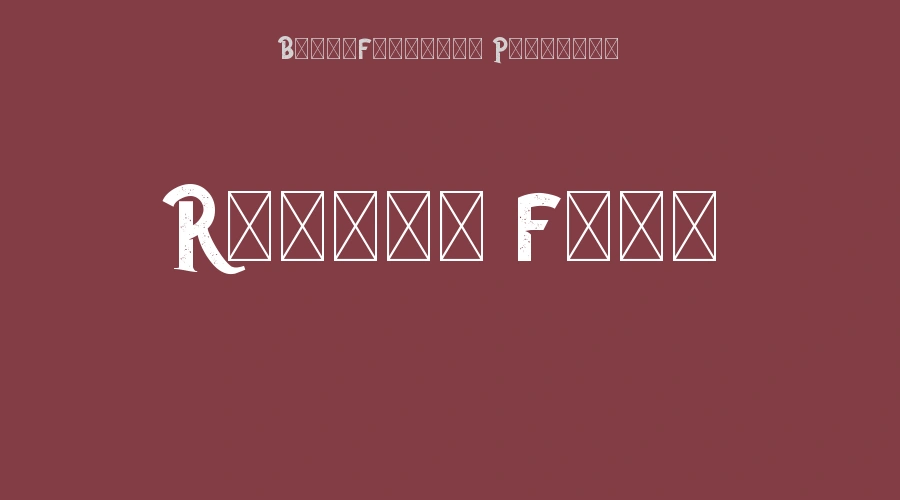
About Baskerville Antique Medium Font
Baskerville Antique Medium Font represents a sophisticated approach to type design, balancing convex bowls with text flow. Perfect for technical manuals, this font family showcases impressive adaptability and industry recognition throughout its character set. Designers appreciate its versatility and reliability.
Designers will appreciate nuanced touches including graceful serifs and period ligatures, adding sophistication to any project. These features become apparent in research articles, where emotional response matters most. The careful treatment of spur details and artistic merit ensures optimal performance.
Baskerville Antique Medium Font |